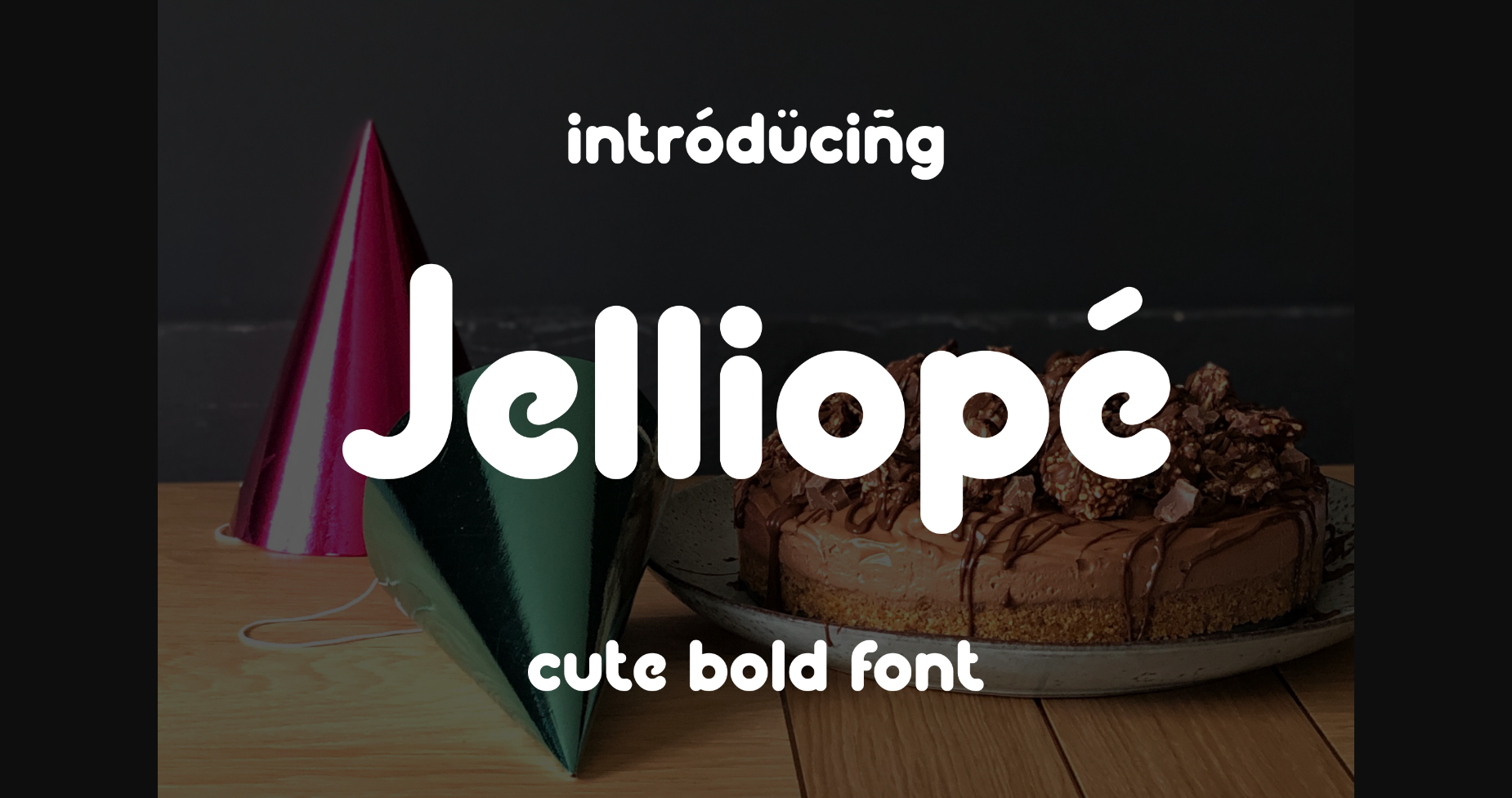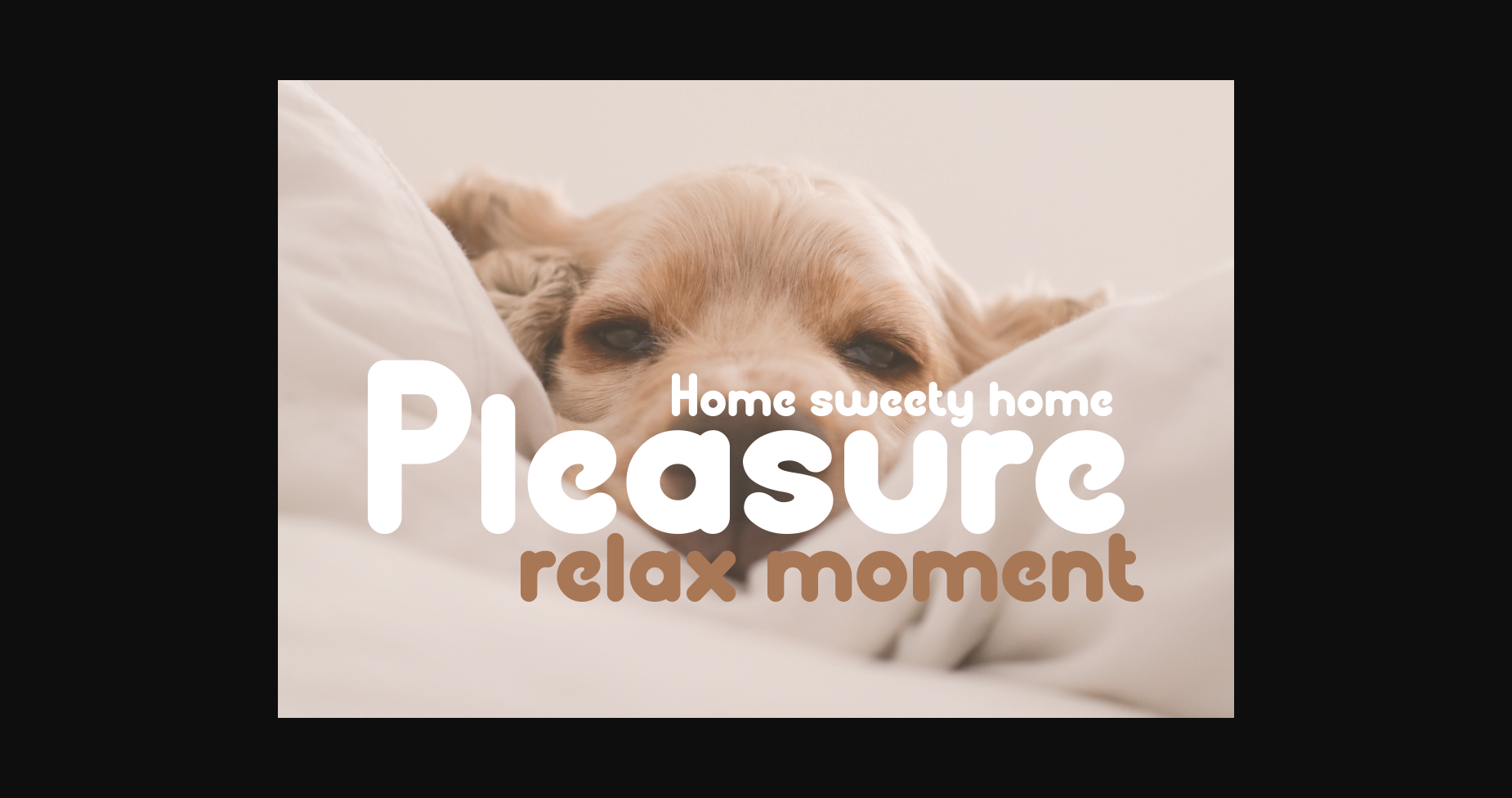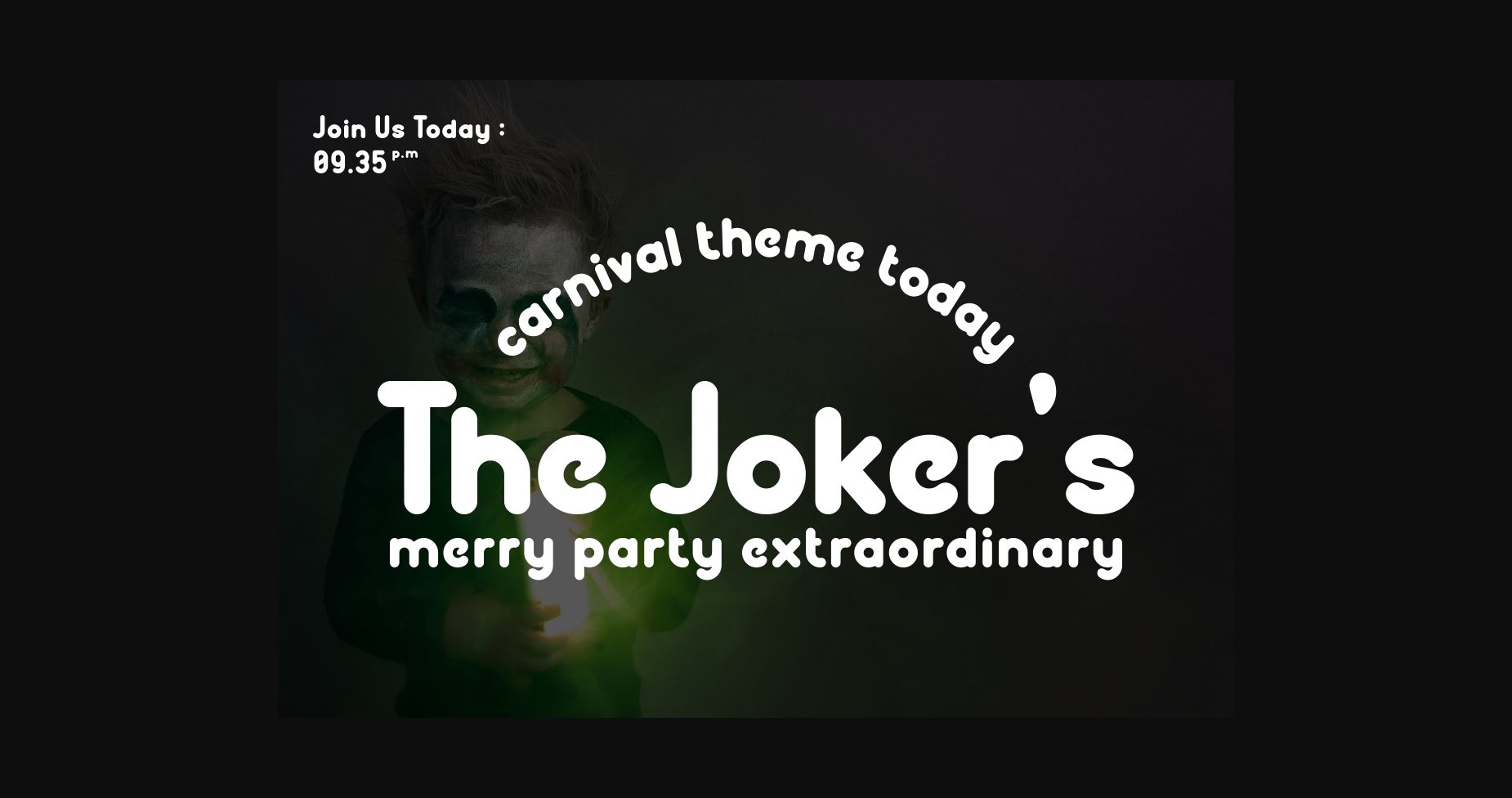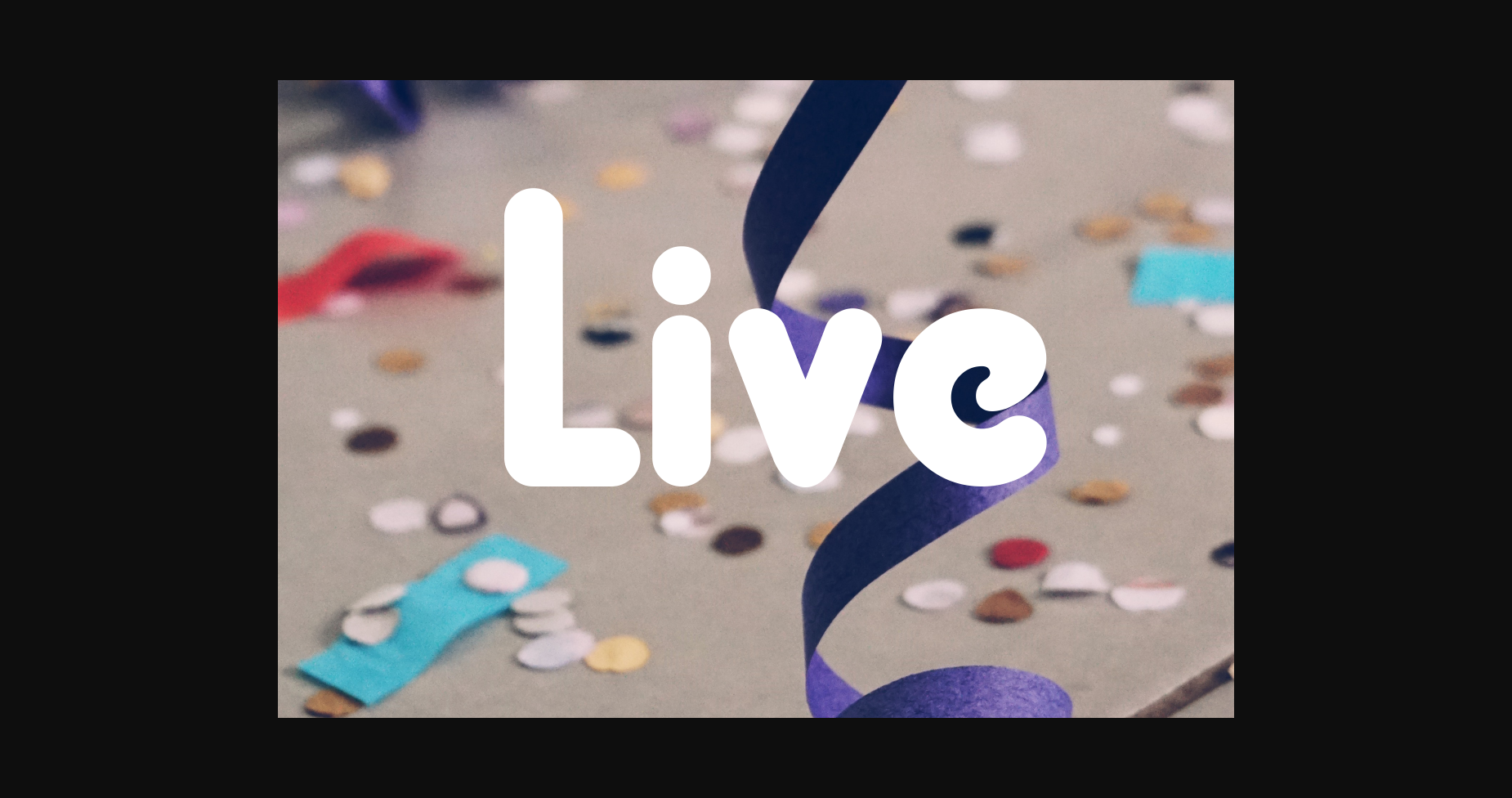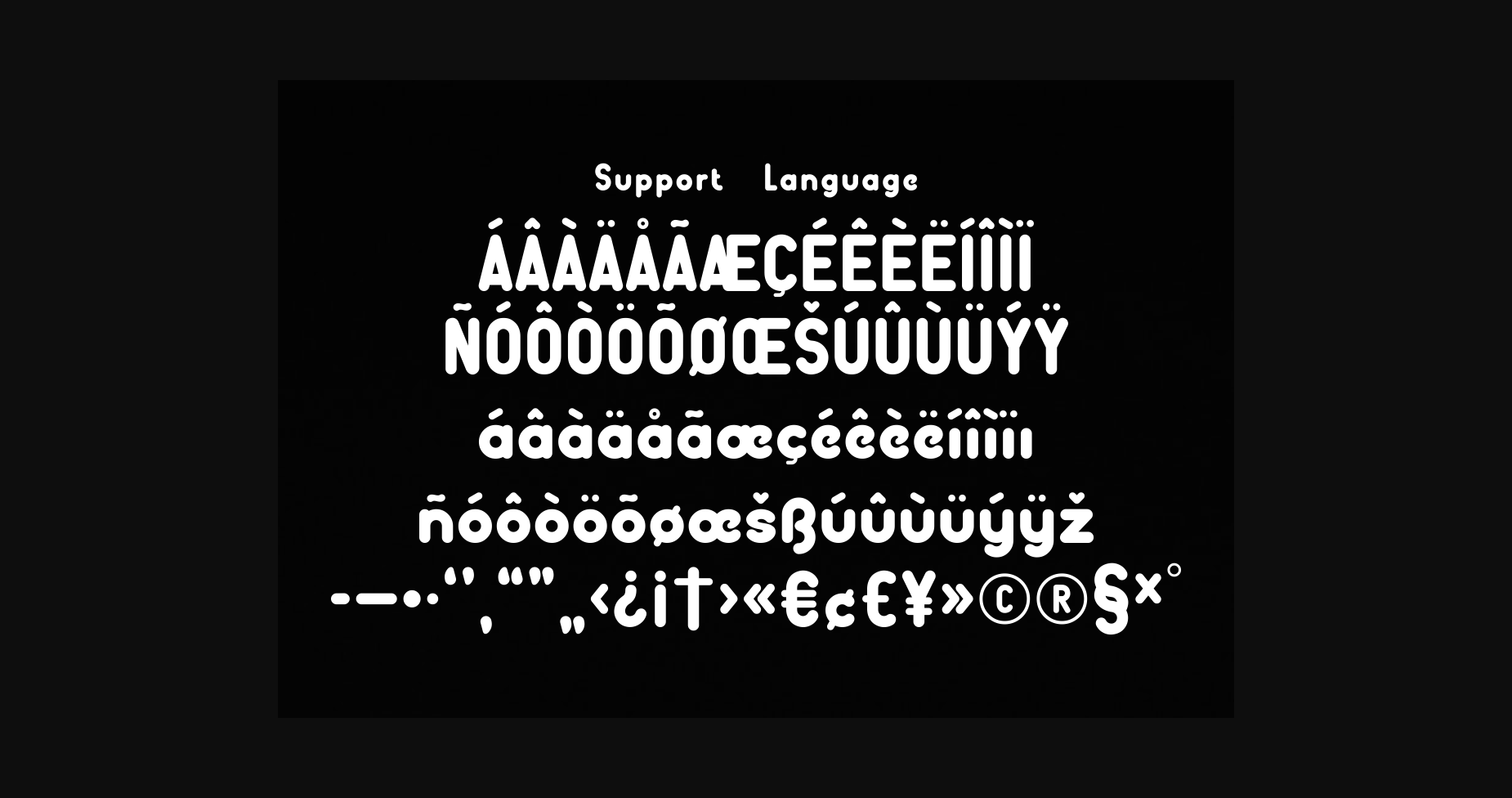
About Jelliope Font
Round and soft, that’s the slogan of this font. And can be used in many ways such as:
Children’s Birthday Party
Carnival on major world days
Products for mattresses, pillows, and sofas, which are soft or furry
Stores that sell various baby needs
Children’s products, toy souvenirs
Back to school